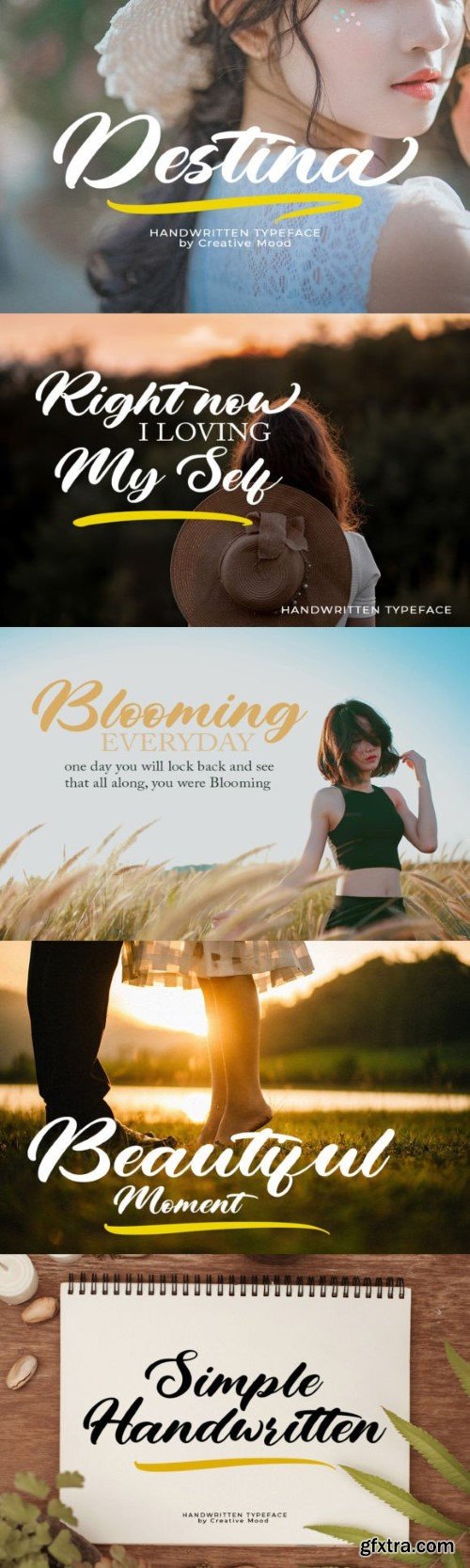
destiny font
Destina exudes elegance with its stylish handwritten script. The fluid strokes and graceful curves lend a sophisticated charm to any design project. Perfect for wedding invitations, branding materials, and signage, Destina adds a touch of romance and refinement, making every piece feel special and heartfelt.